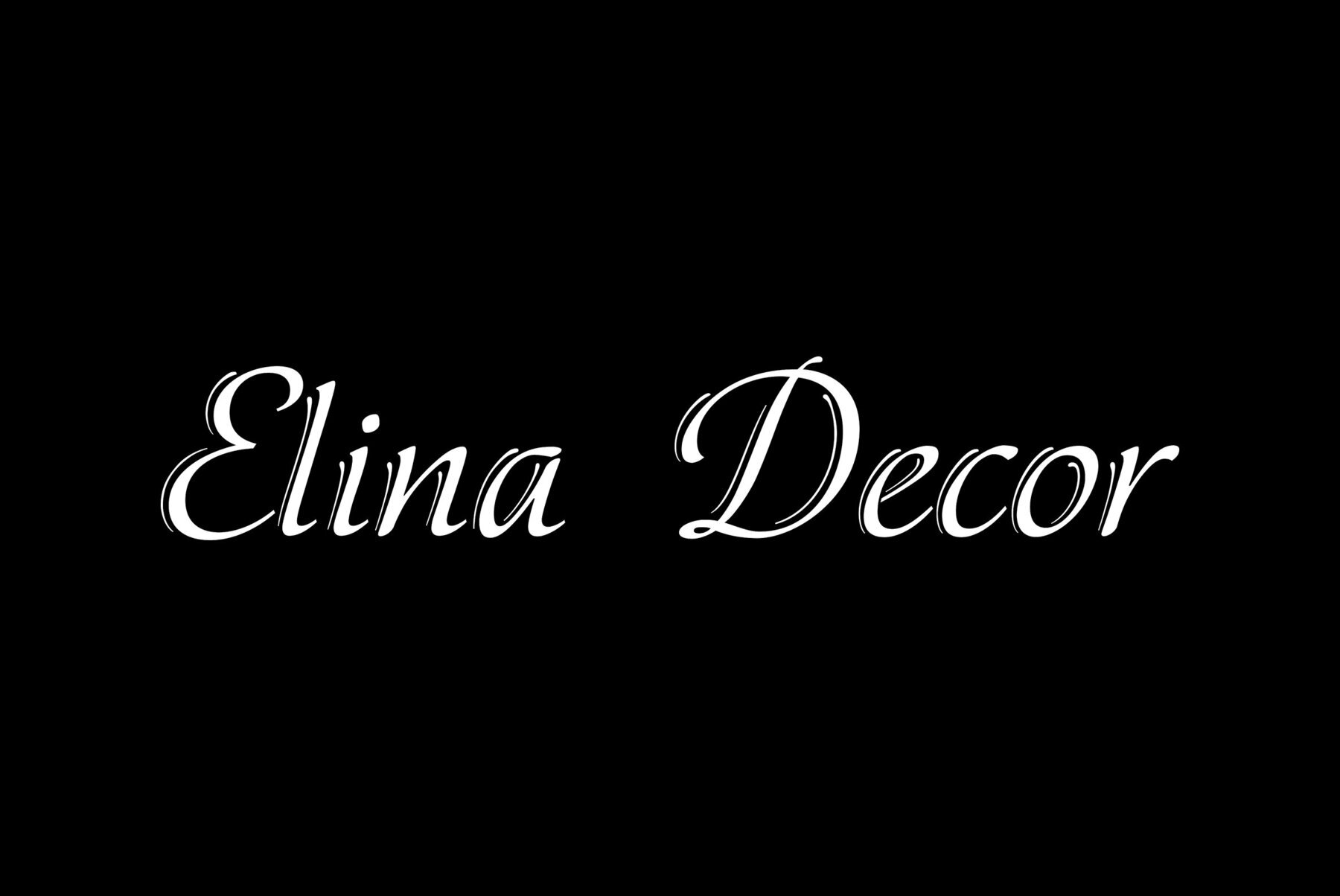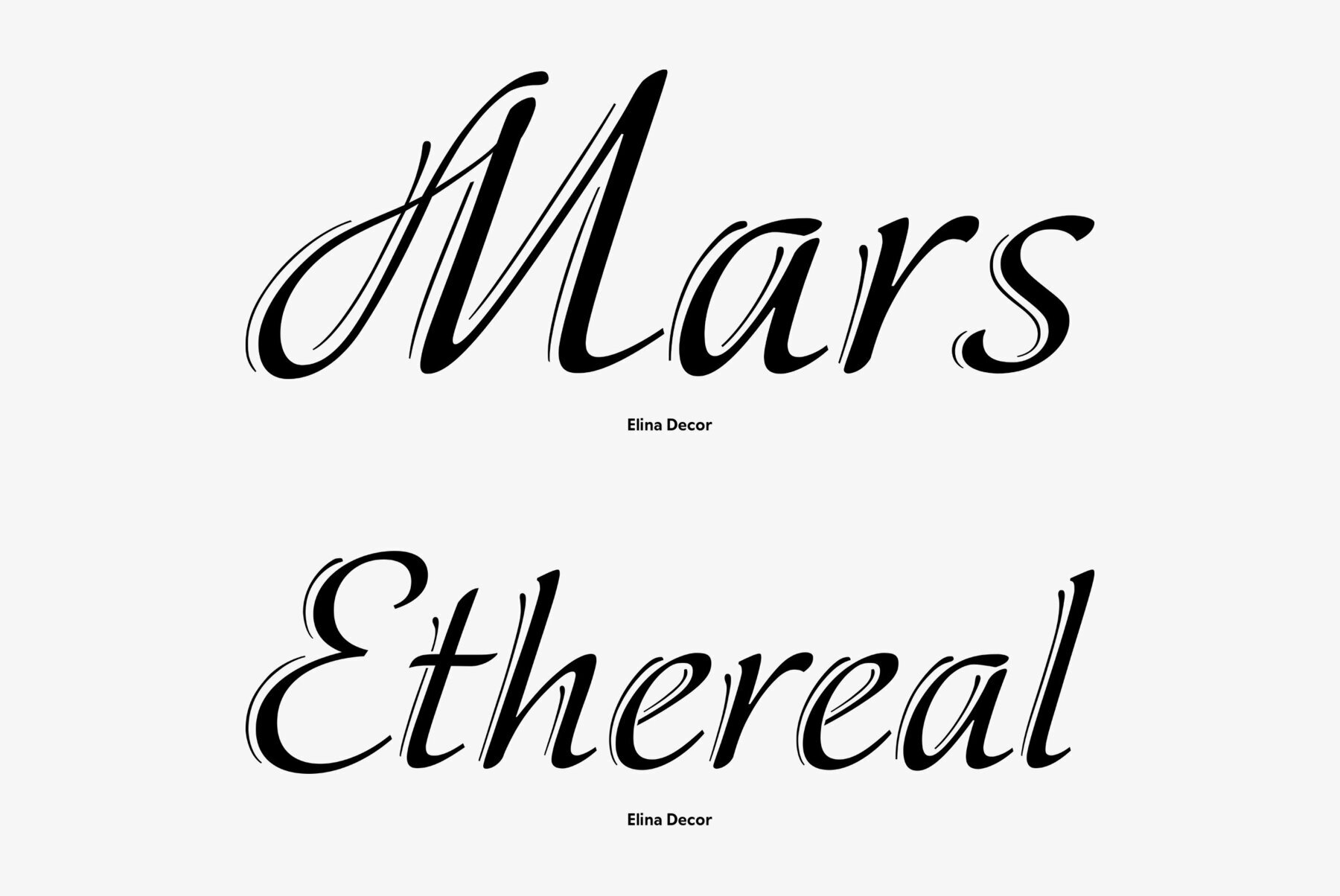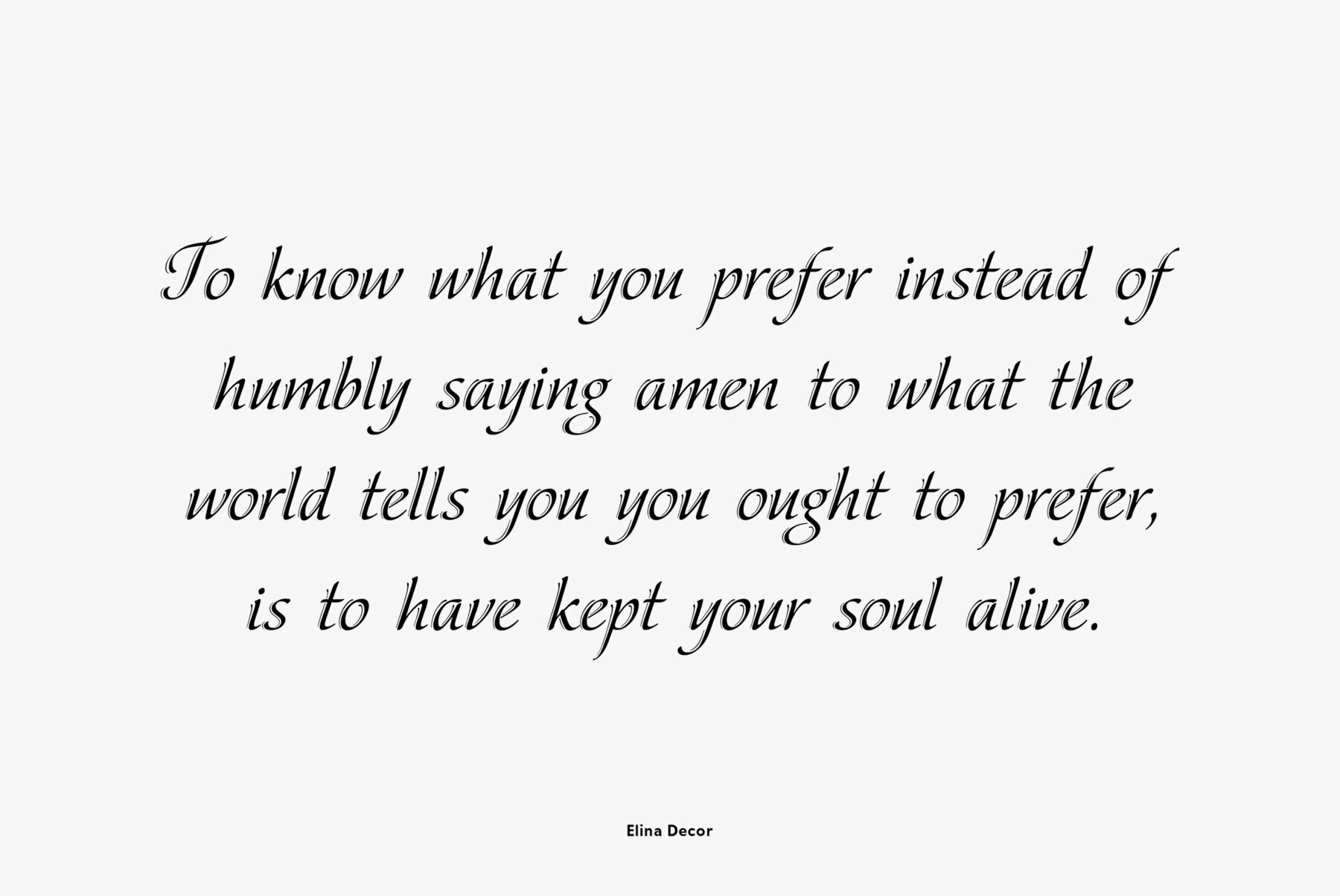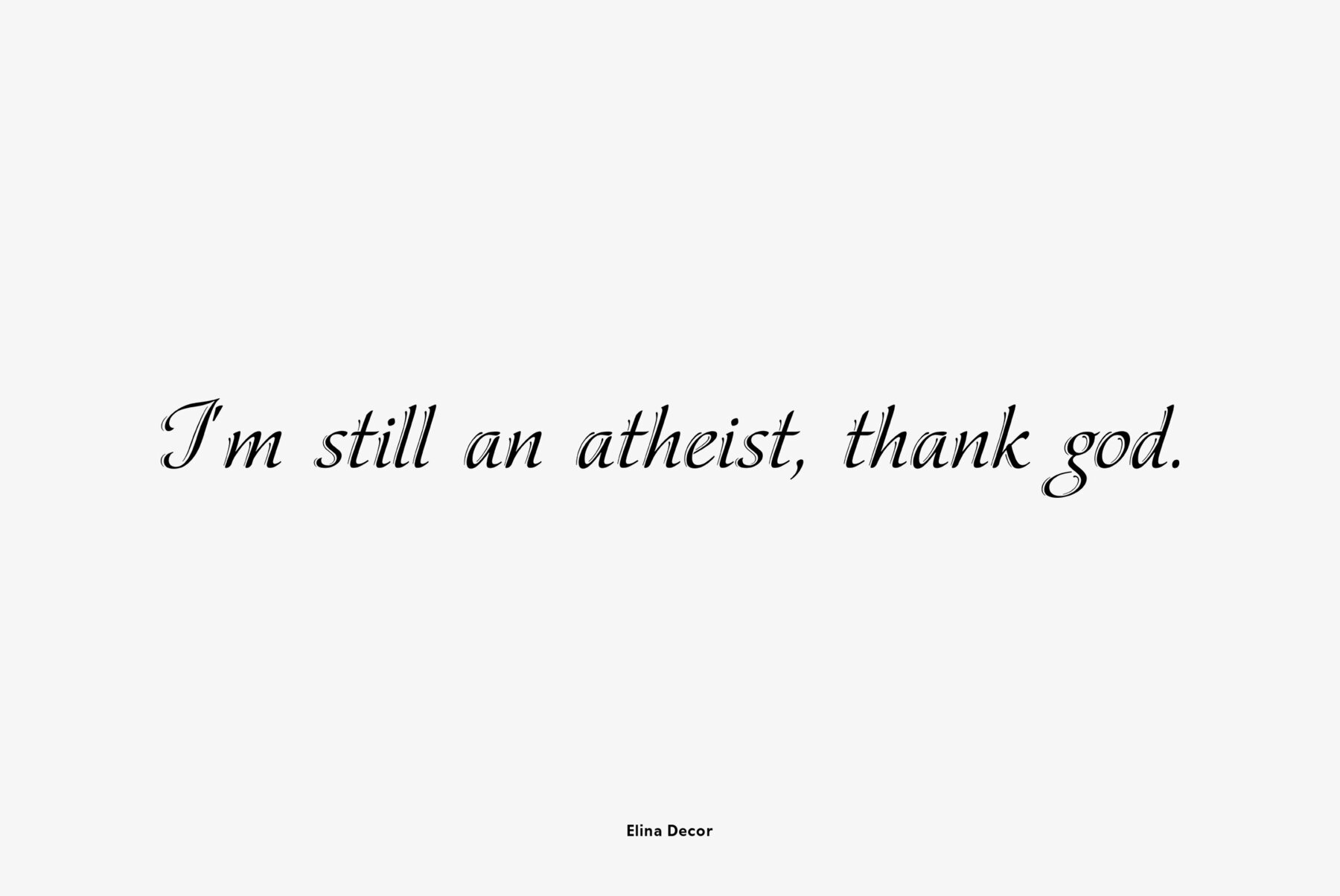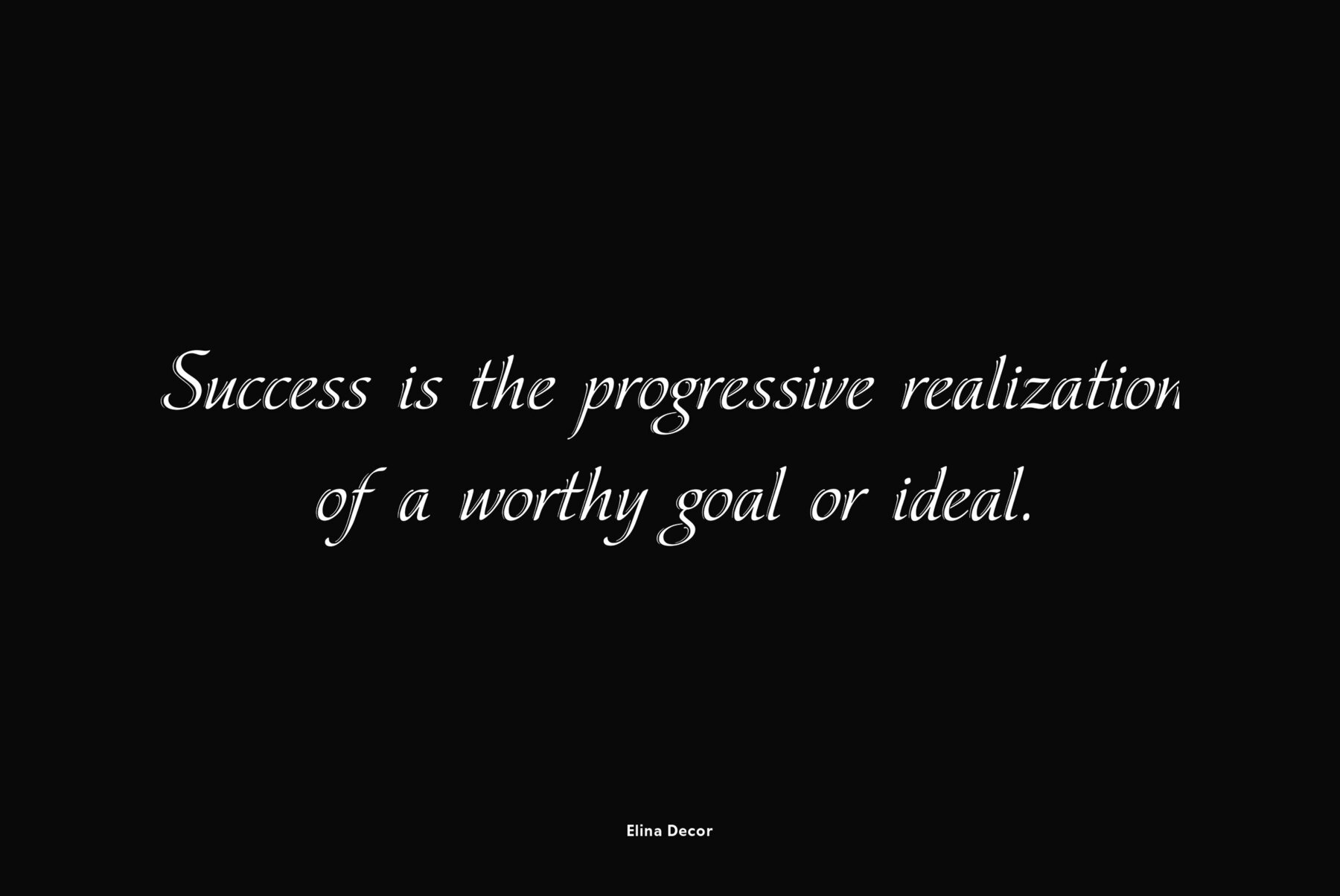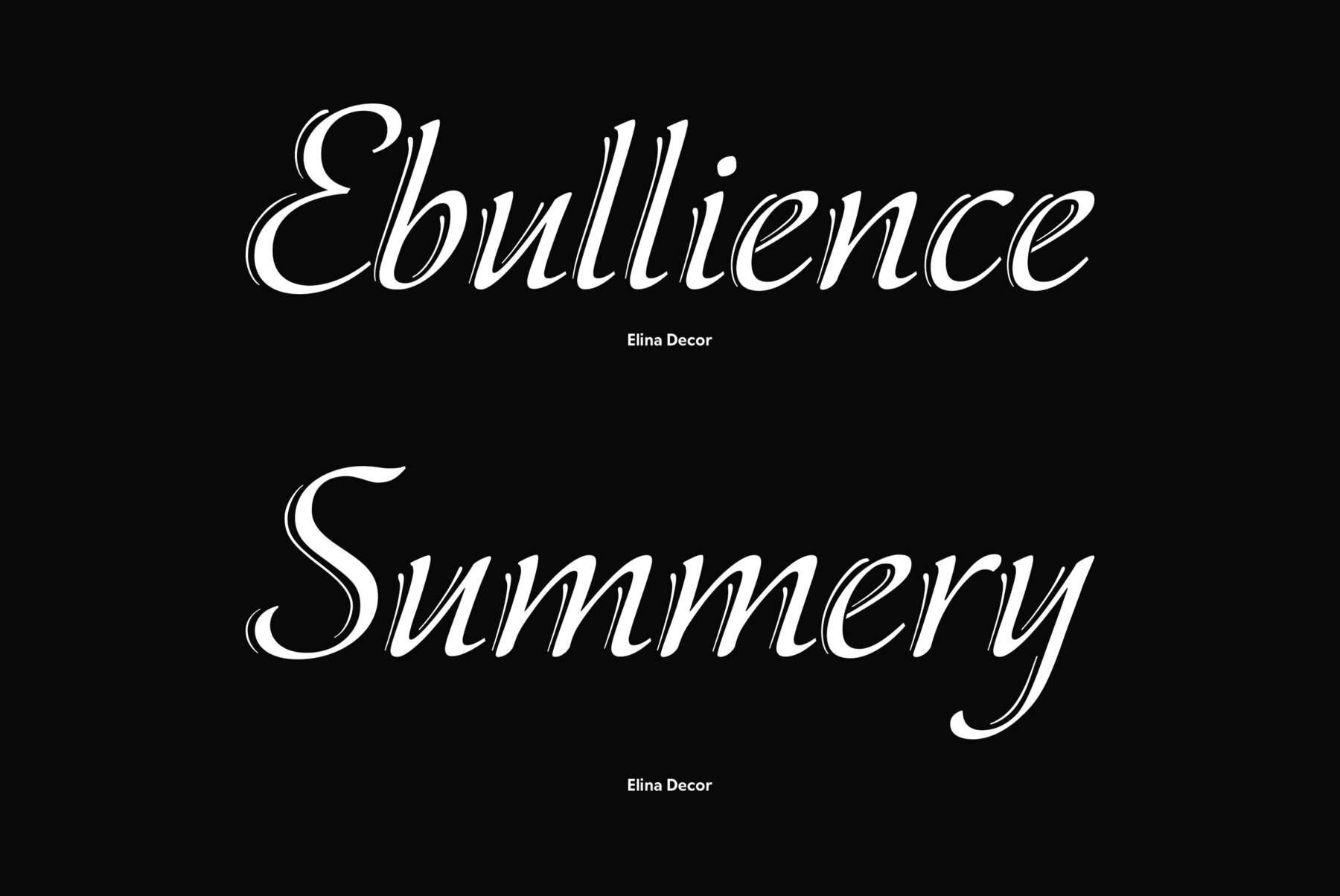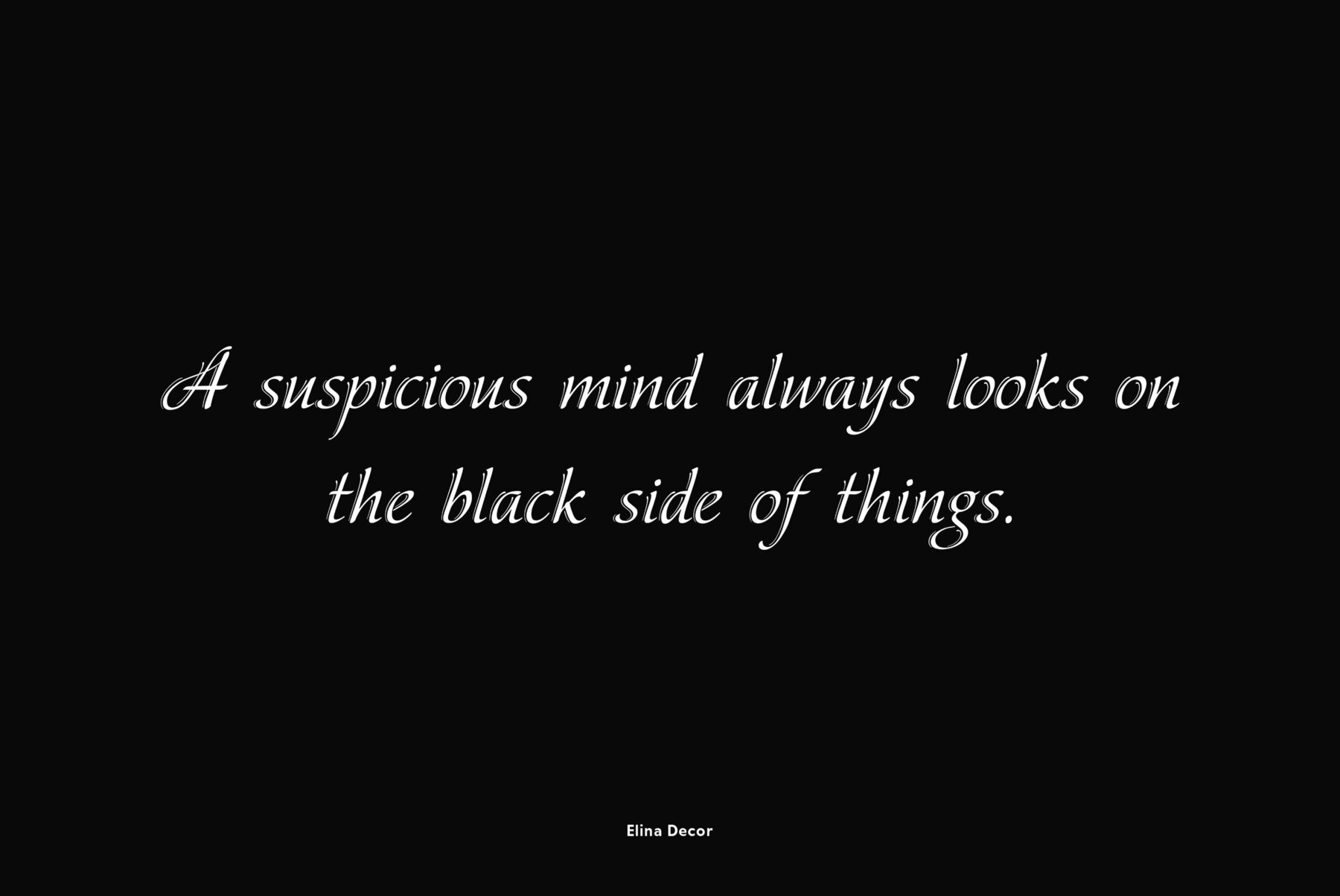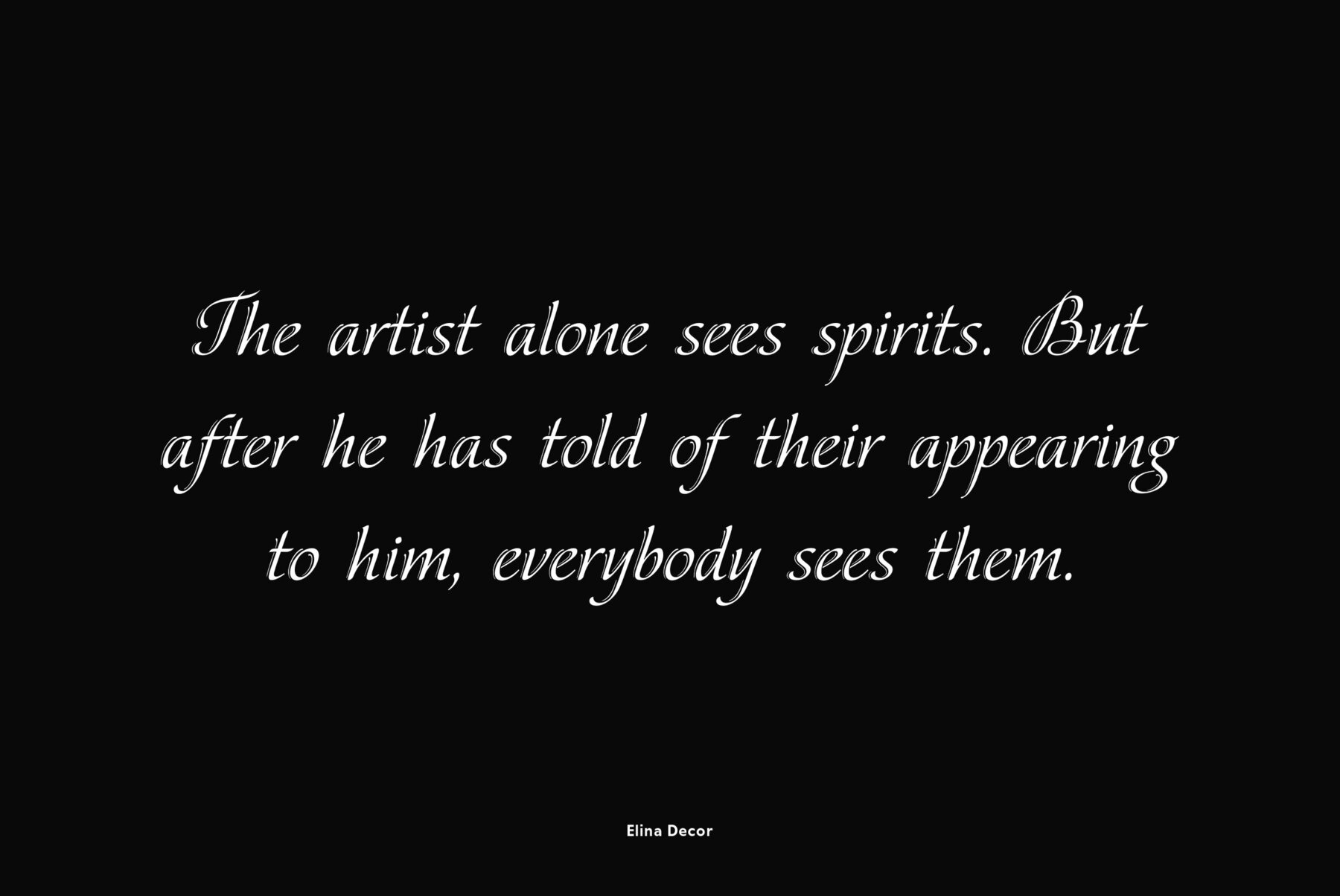
Elina Decor
Elina continues the series of graceful calligraphic typefaces by Natalia Vasilyeva that partially imitate broad pen drawings. The family consists of two styles -- normal and decorative. Decorative style contains characters ornamented with thin strokes that add a beauty and charm to the design. The fonts can be used in display matters, advertising and celebration texts. Released by ParaType in 2011.